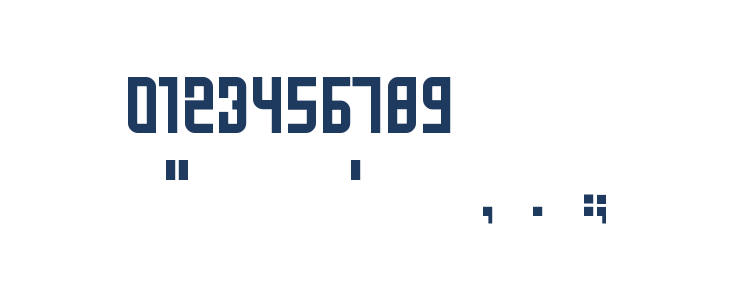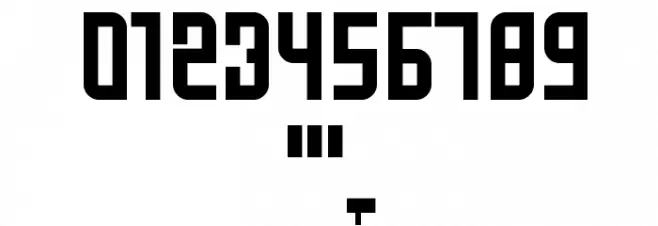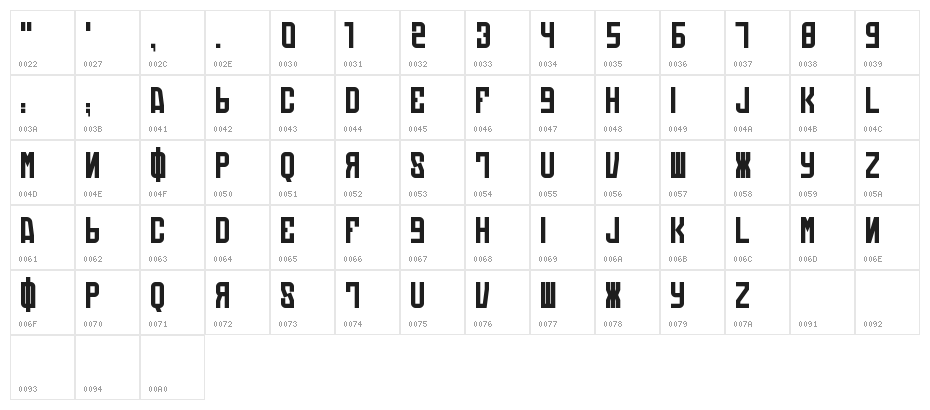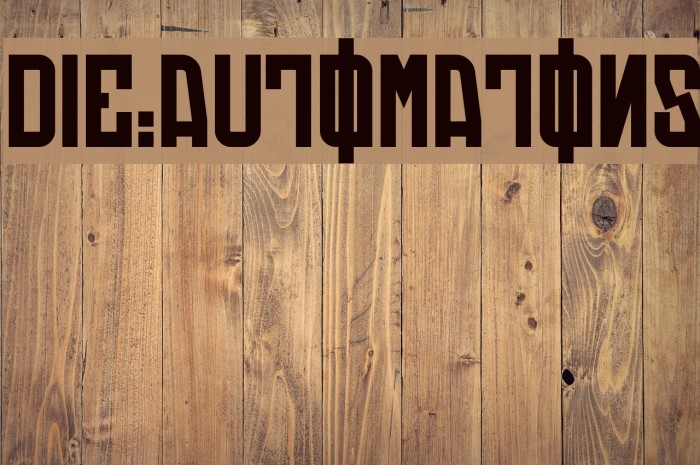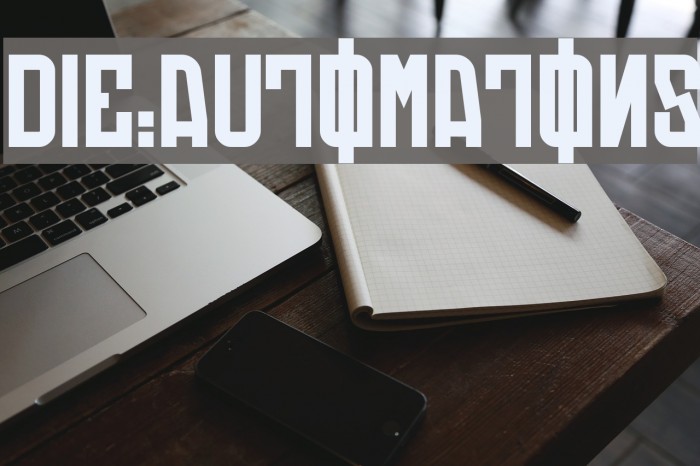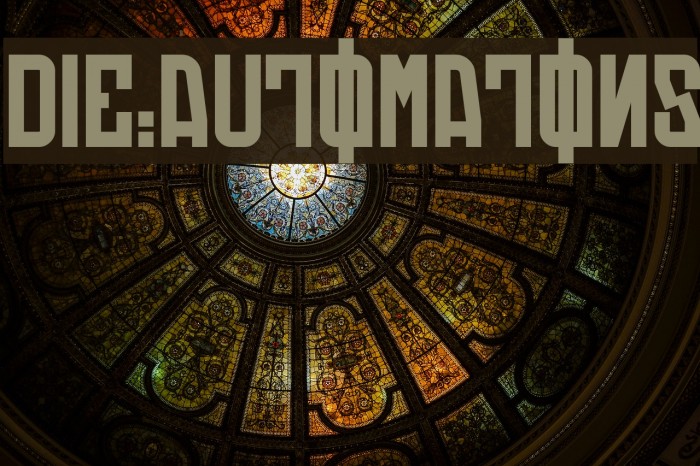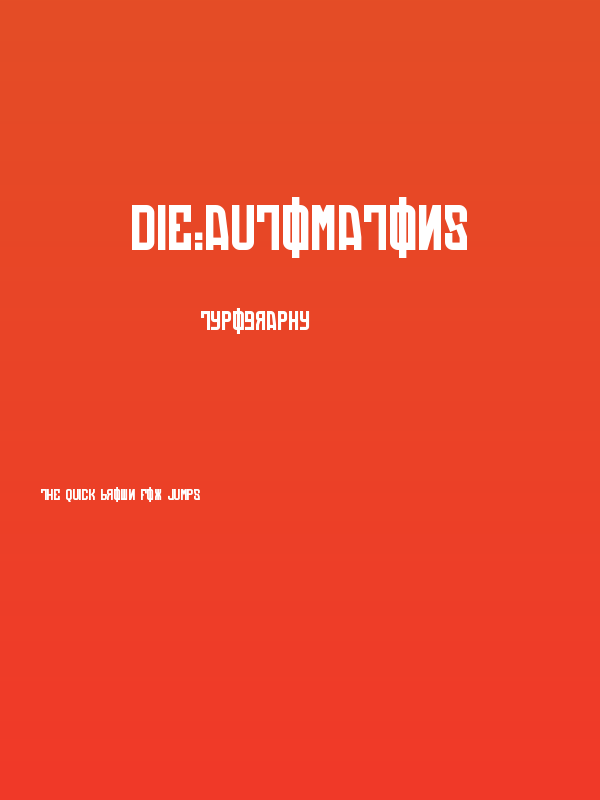
Die:Automatons Font
Die:Automatons Description
This font features a bold, geometric style with a futuristic and mechanical feel. The characters are constructed with straight lines and sharp angles, giving it a robotic and industrial appearance. The uppercase and lowercase letters maintain a consistent height, contributing to a uniform and structured look. The numbers and special characters follow the same design principles, ensuring a cohesive visual identity across all glyphs. This font's unique style makes it stand out, ideal for projects that require a modern and edgy aesthetic.
| Overall Style | Futuristic, Industrial |
| Proposed Projects | Ideal for sci-fi themed posters, video game titles, technology branding, and industrial design projects. |